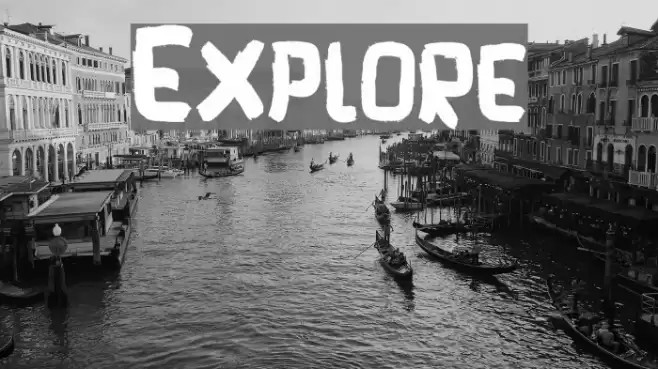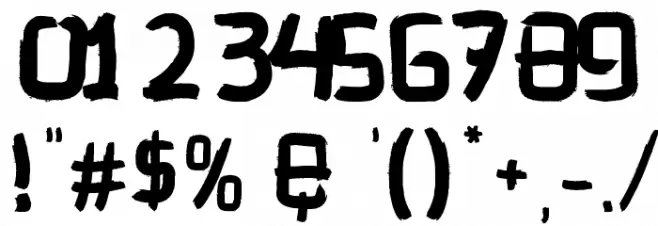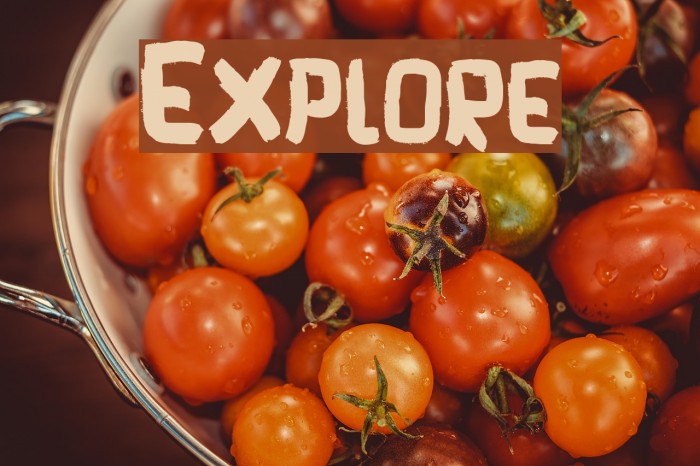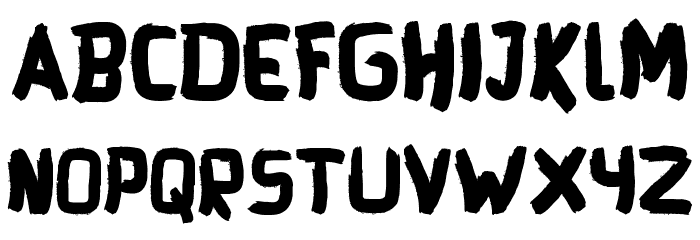
Explore Font
Explore Description
This font features a bold, brush-like appearance with a hand-painted aesthetic. The strokes are thick and uneven, giving it a dynamic and energetic feel. Each character is distinct, with a slightly irregular form that adds to its handcrafted look. The uppercase and lowercase letters maintain a consistent style, while the numbers and special characters complement the overall design. The font's boldness makes it stand out, ideal for projects that require a strong visual impact.
A bold, brush-style font with a dynamic, handcrafted appearance from Uncategorized fonts.
- Proposed Projects: Perfect for posters, branding, headlines, and artistic projects that require a bold statement.
- Overall Style: Modern, Artistic
- Use Case: Headlines, Posters, Branding